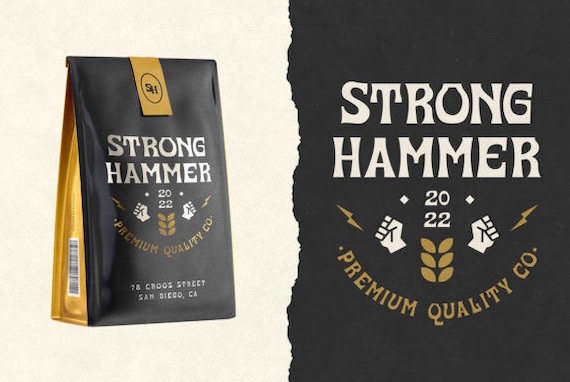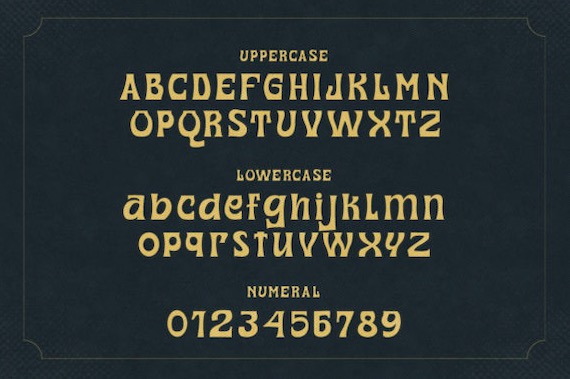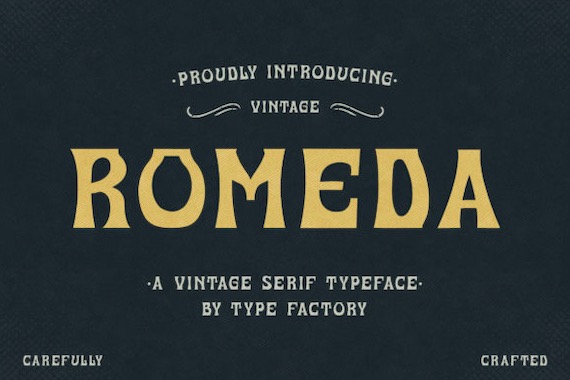
Romeda is an elegant and unique serif font that has a nostalgic display feel and this fancy font will bring out a great vintage aesthetic for any of your designs. Romeda Font was created and shared by TypeFactory. It’s perfect for a luxurious themed brand, apparel, cosmetics, wedding invitation, writer, title, resort, logotype, interior decoration, food industry, label, and more.
Romeda Display Serif Font